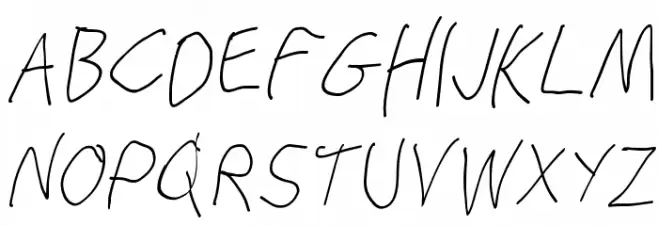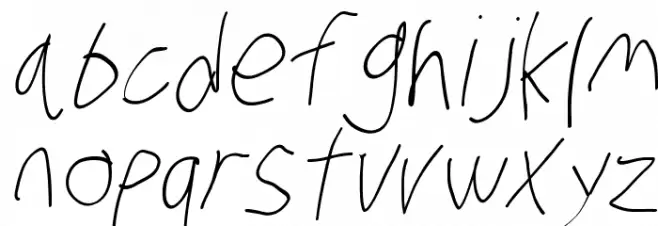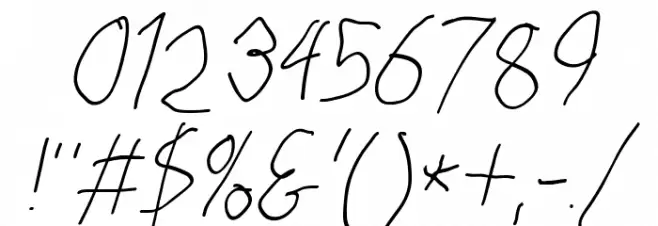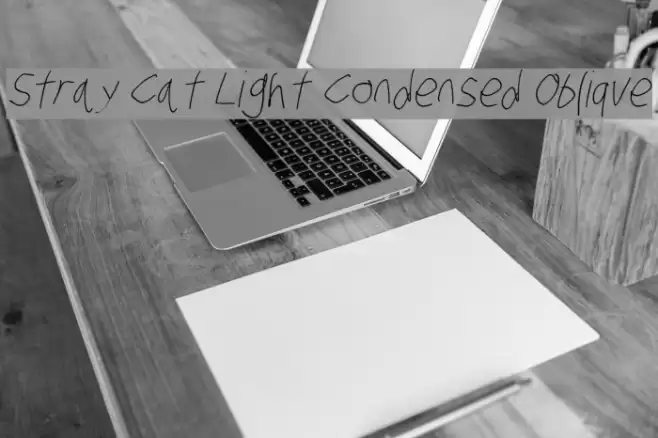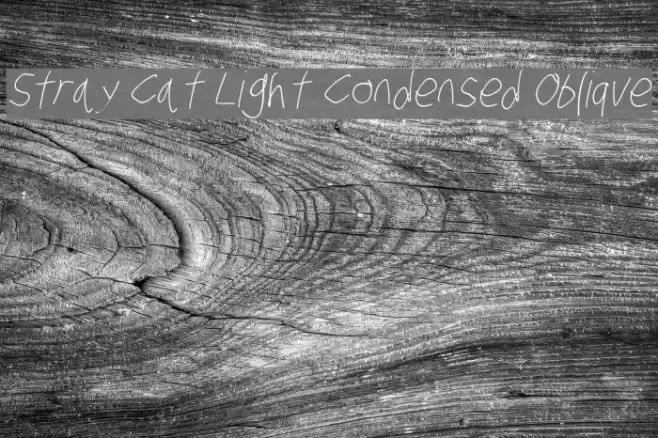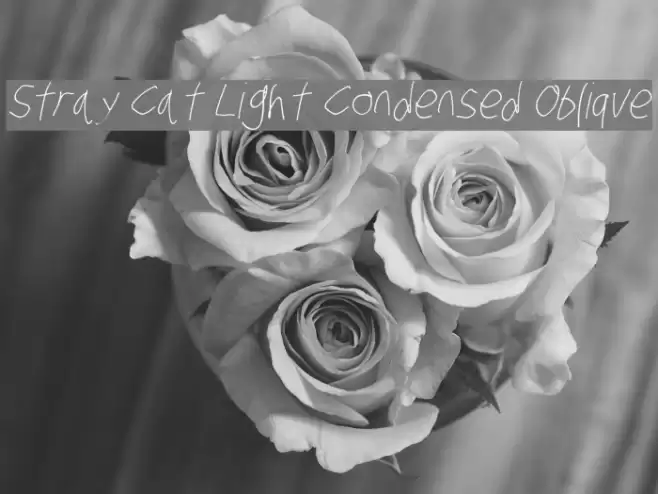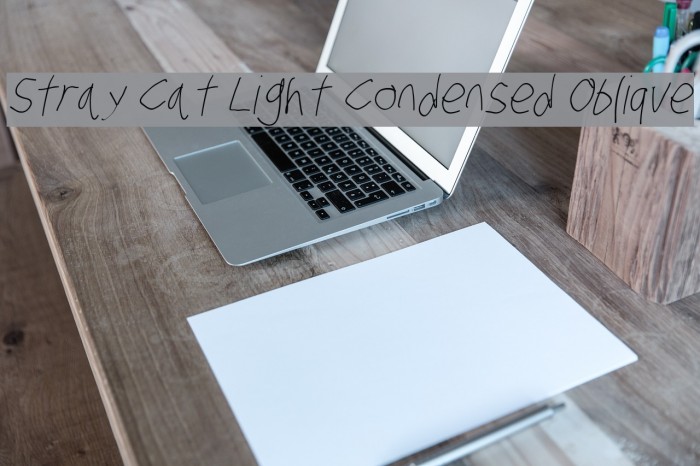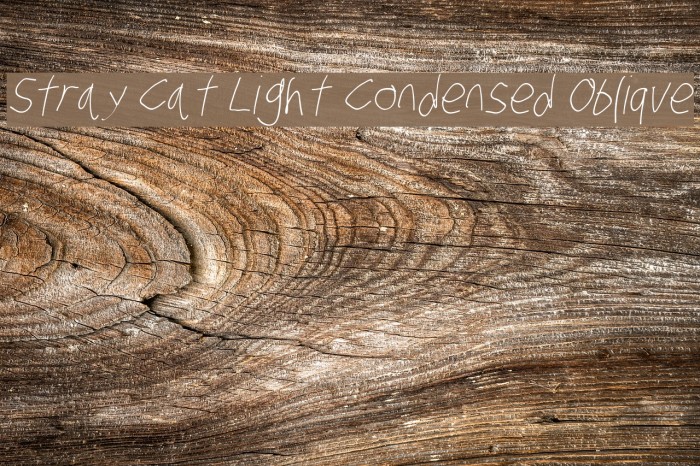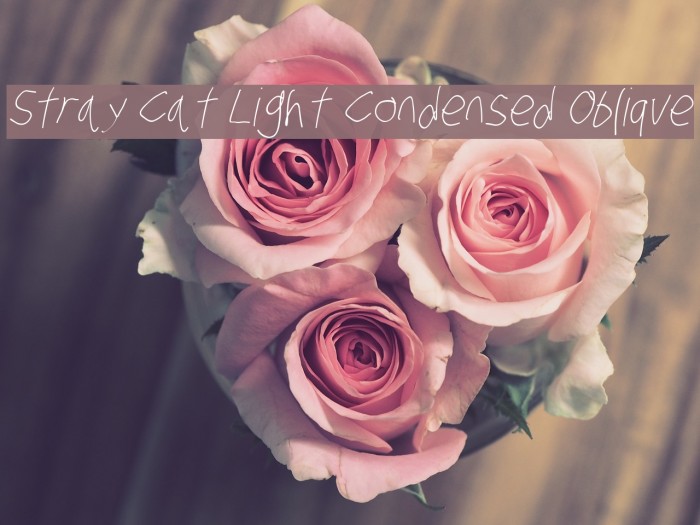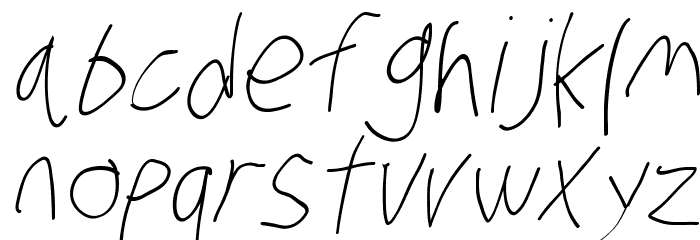
Stray Cat Light Condensed Oblique
This font features a playful, handwritten style with a light and airy feel. The characters are slightly condensed, giving it a compact appearance while maintaining readability. The oblique slant adds a dynamic and informal touch, making it suitable for casual and creative projects. The strokes are consistent in weight, providing a uniform look across all characters. The font includes a full set of uppercase and lowercase letters, numbers, and a variety of special characters, allowing for versatile use in different contexts.
A playful, handwritten font with a light, condensed, and oblique style.
- Proposed Projects: Ideal for greeting cards, personal blogs, children's books, and creative branding projects.
- Weight: Light
- Width: Condensed
- Overall Style: Casual
- Use Case: Logos, Invitations, Creative projects